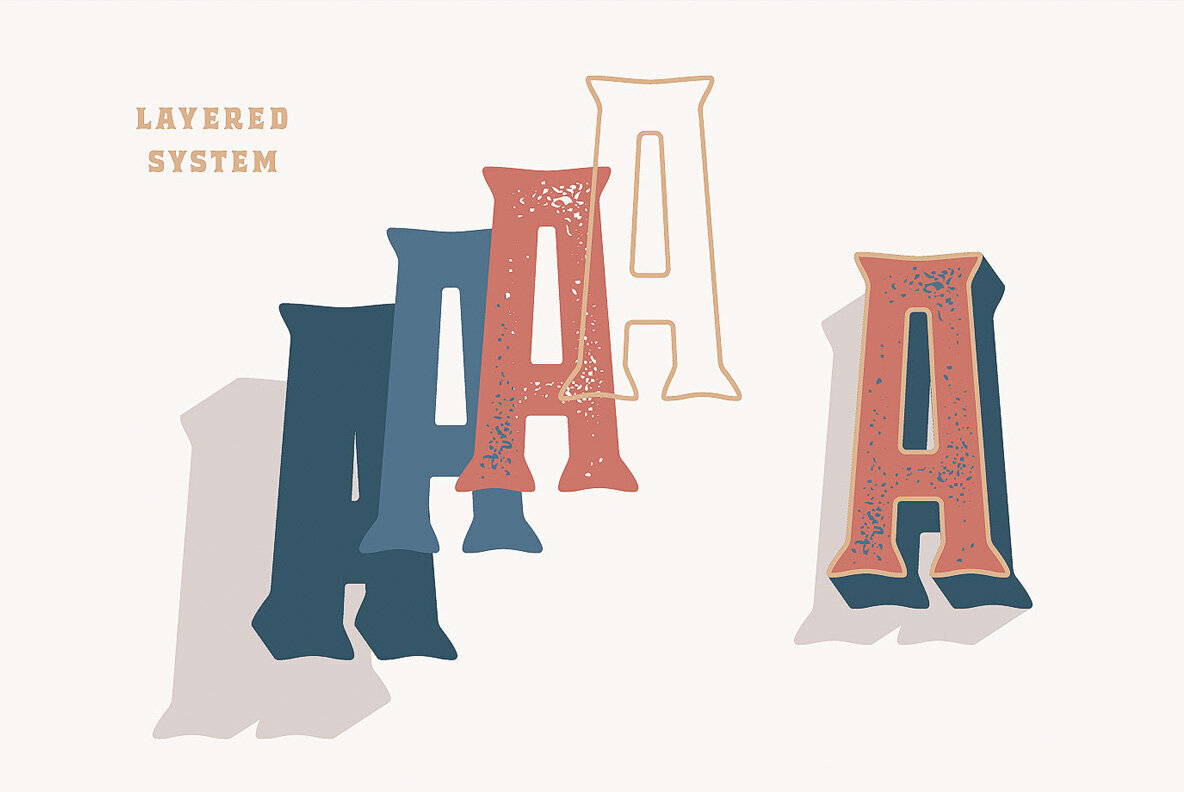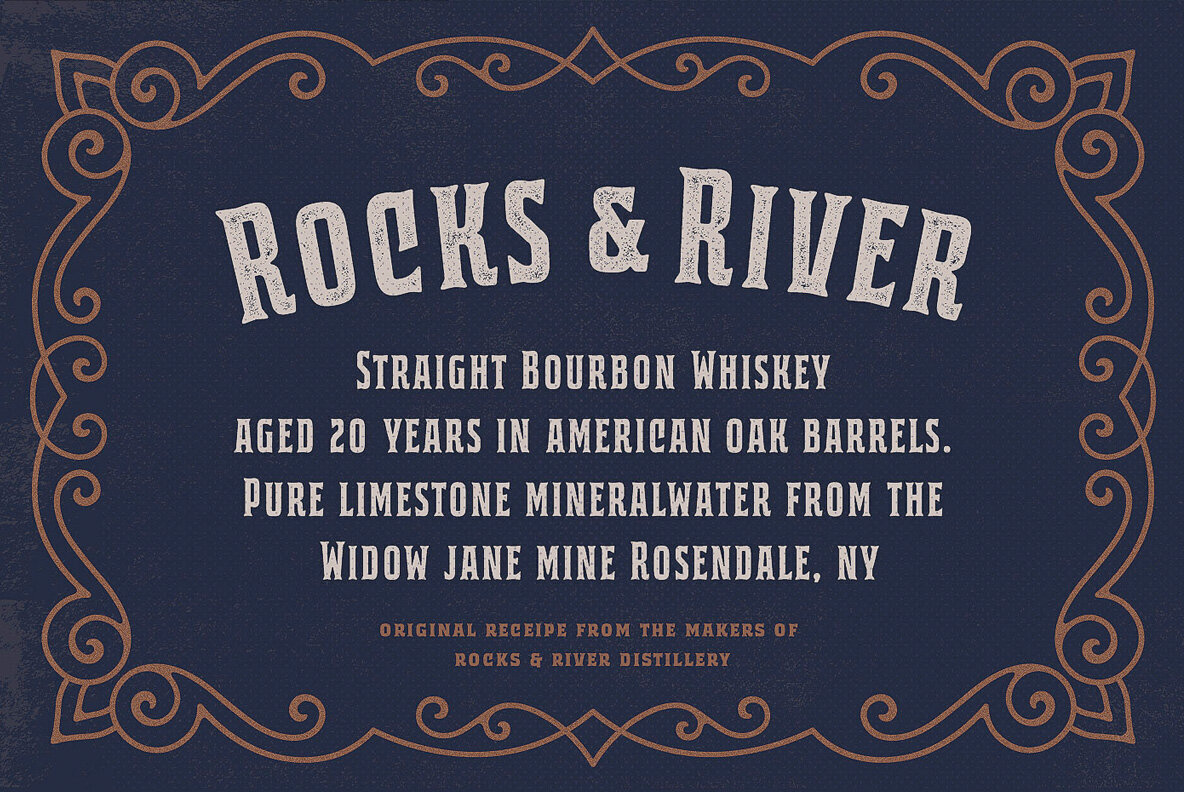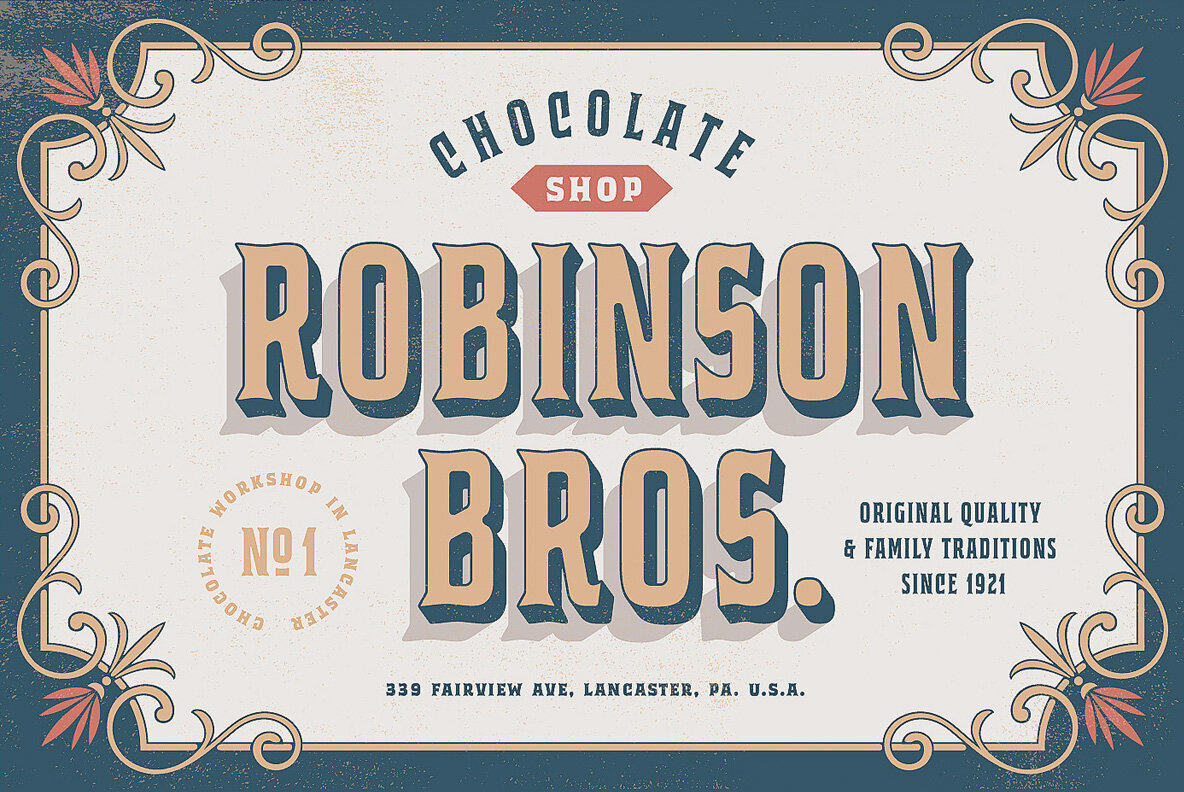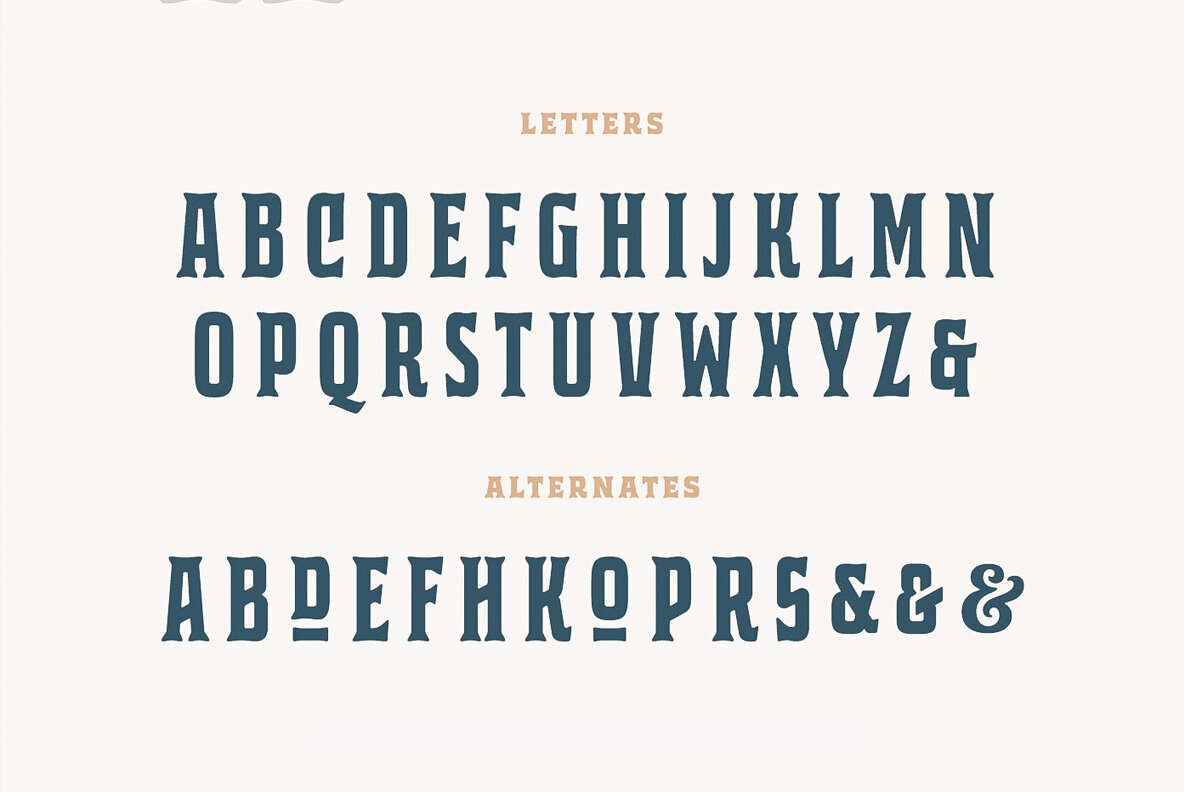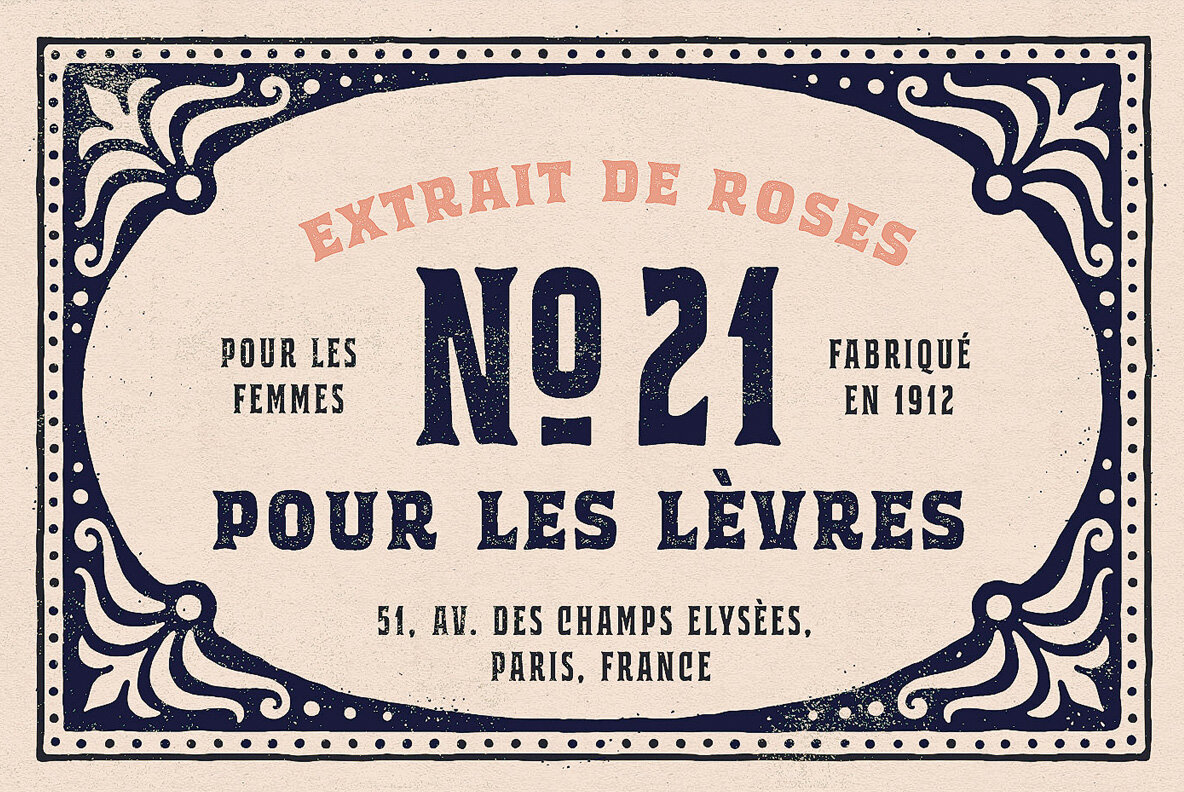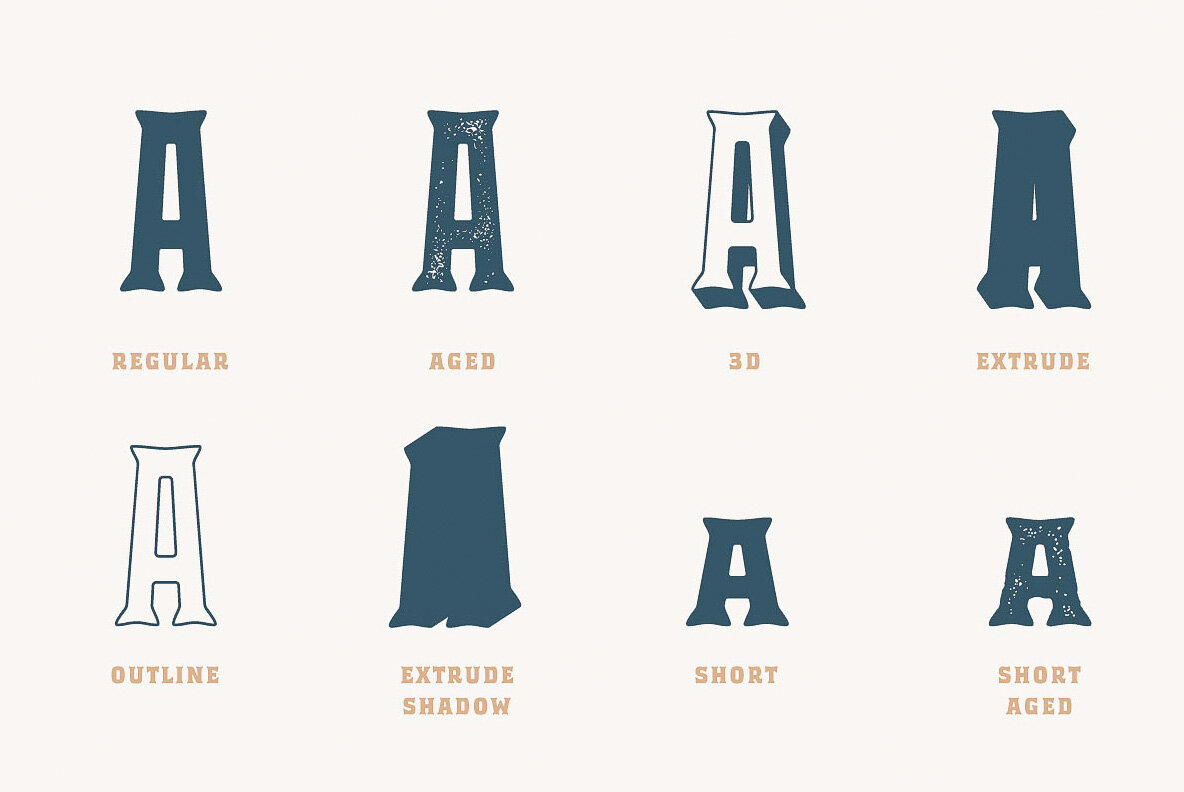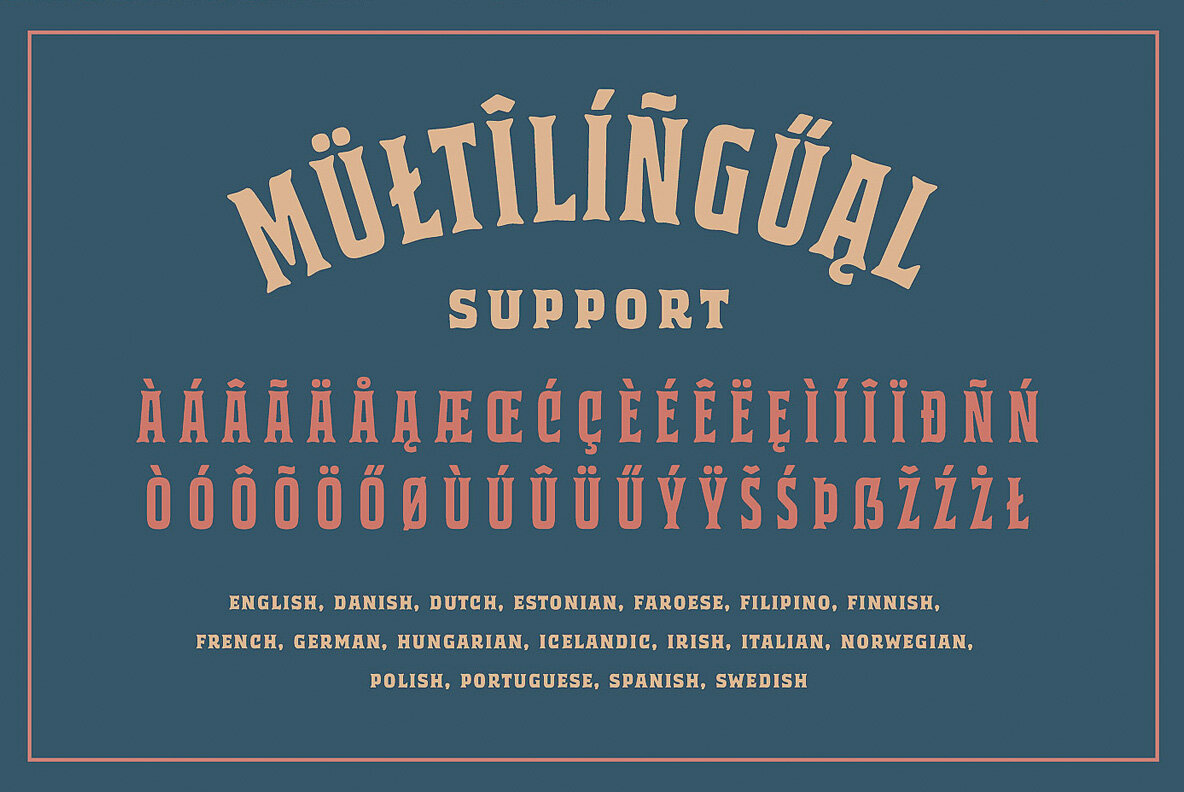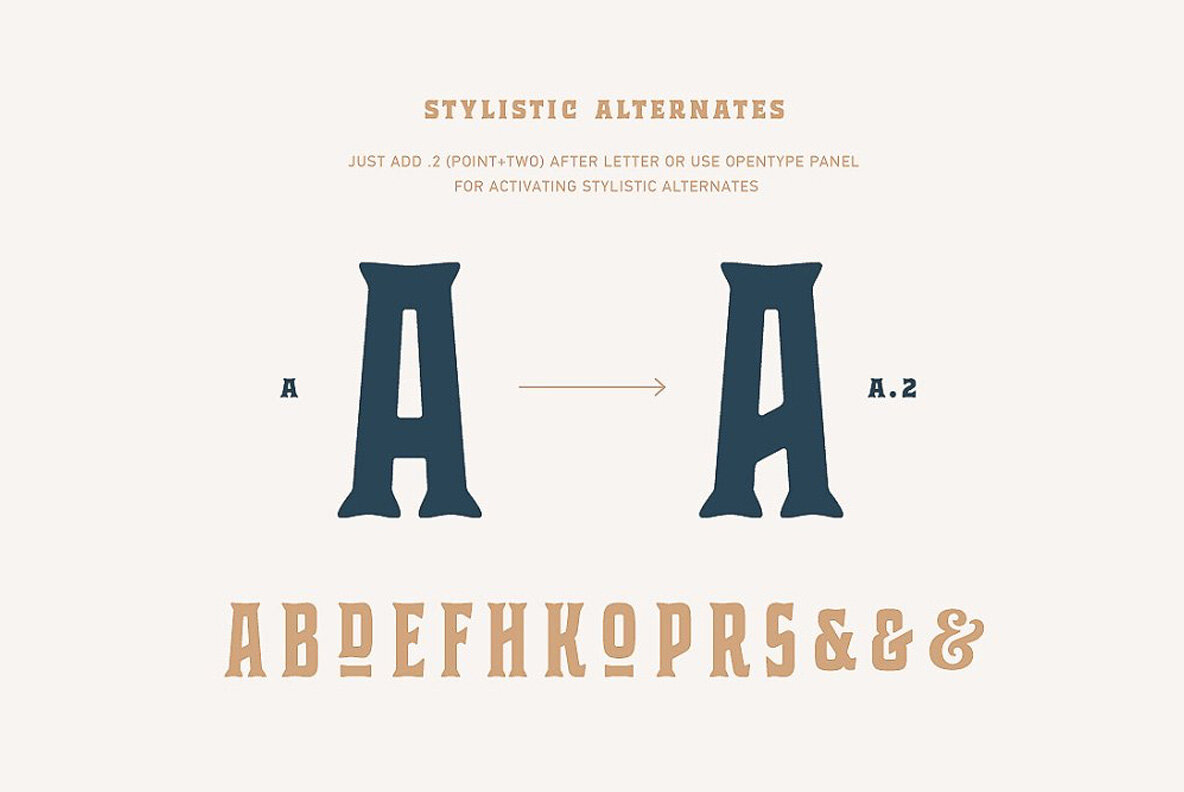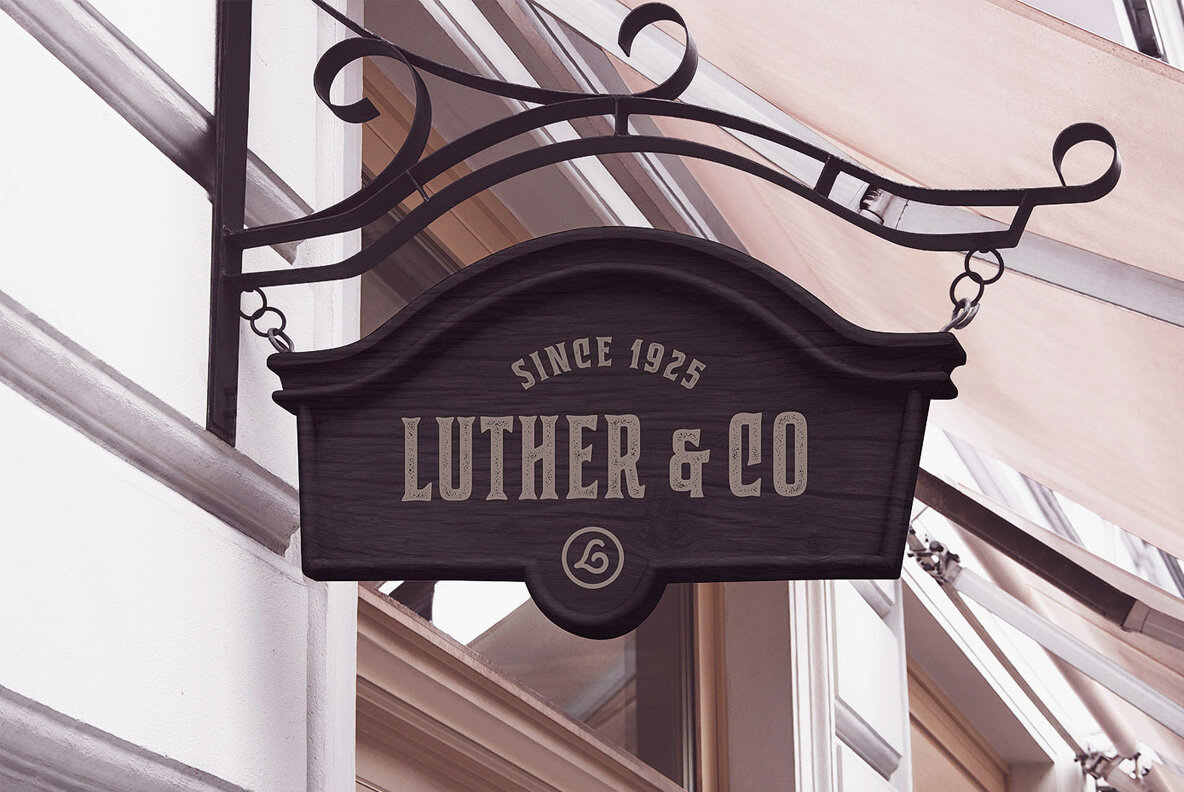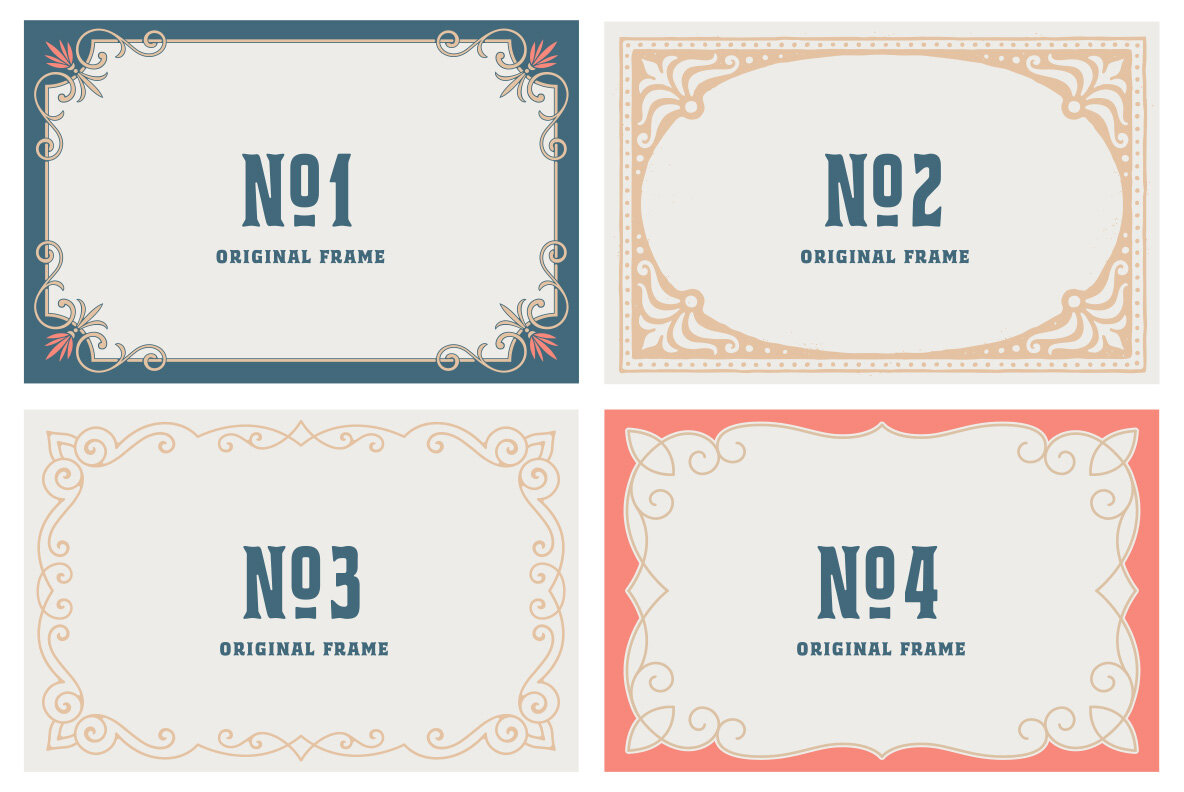
Bourbon House Font
Bourbon House Regular
Bourbon House Aged Regular
Bourbon House Short
Bourbon House Short Aged
Bourbon House 3D
Bourbon House Outline
Bourbon House Extrude
Bourbon House Extrude Shadow
Bourbon House is layered font family inspired by classic whiskey labels and Sing Painting. Strong Serif allcaps letters looking good in any vintage labels, logos, packages, headlines and text blocks. It has 8 different variations, that extends the possibilities when you design something.
Condenced fonts of Bourbon House has alternates which you can see just adding (.2) after letter or activating this feature via Opentype panel. Furthermore the product includes a Set of 4 Vintage frames which perfectly complement text compositions. You can see it on my presentation examples.
Font works with following languages: English, Danish, Dutch, Estonian, Faroese, Finnish, French, German, Hungarian, Icelandic, Italian, Norwegian, Polish, Portuguese, Spanish, Swedish.